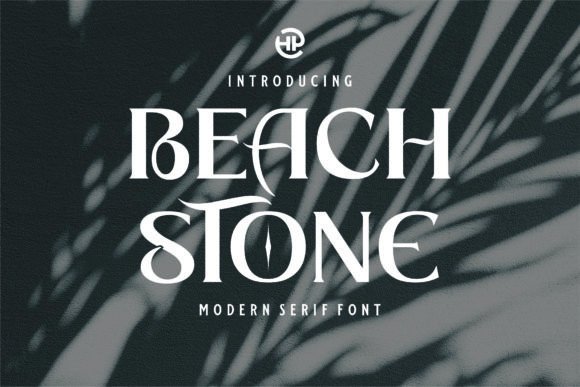
Introducing Beach Stone Font: The Perfect Blend of Classic and Modern Elegance
In the world of typography, fonts play a crucial role in conveying the tone and personality of a brand. With countless options available, finding the perfect font that embodies both elegance and modernity can be a daunting task. However, look no further than Beach Stone Font, a stunning modern serif font that effortlessly blends classic charm with contemporary flair.
What is Beach Stone Font?
Beach Stone Font is a thoughtfully designed serif font that exudes sophistication and style. Its clean lines, sharp edges, and smooth curves make it an excellent choice for a wide range of design applications, from logos and headlines to branding and advertising.
This versatile font is perfect for designers seeking to create elegant and trendy designs that captivate their audience. Whether you’re working on a luxury brand, a high-end product, or a creative project, Beach Stone Font is sure to impress.
Key Features of Beach Stone Font
- Classic yet Modern: Beach Stone Font boasts a classic serif design with a modern twist, making it perfect for both traditional and contemporary designs.
- Clean and Stylish Lines: The font features clean, stylish lines that are easy to read, ensuring your message is conveyed with clarity and precision.
- Sharp Edges and Smooth Curves: The combination of sharp edges and smooth curves creates a beautiful visual contrast, adding depth and character to your designs.
- Elegant and Trendy: Beach Stone Font is ideal for creating elegant and trendy designs that appeal to a wide range of audiences.
Uses of Beach Stone Font
Beach Stone Font is an incredibly versatile font that can be used in various design applications, including:
- Logos: Create stunning logos that exude elegance and sophistication.
- Headlines: Use Beach Stone Font to craft attention-grabbing headlines that draw your audience in.
- Branding: Establish a strong brand identity with Beach Stone Font’s classic yet modern design.
- Advertising: Make your advertising campaigns stand out with this beautiful font.
- Packaging: Add a touch of elegance to your product packaging with Beach Stone Font.
Why Choose Beach Stone Font?
With so many fonts available, why choose Beach Stone Font? Here are just a few reasons:
- Unique Design: Beach Stone Font offers a unique blend of classic and modern design elements, setting it apart from other fonts.
- Readability: The font’s clean lines and sharp edges ensure excellent readability, even at small sizes.
- Versatility: Beach Stone Font can be used in a wide range of design applications, making it a valuable addition to your font library.
- Ease of Use: This font is easy to use and pairs well with a variety of other fonts, making it perfect for designers of all levels.
Tips for Using Beach Stone Font
To get the most out of Beach Stone Font, here are some tips to keep in mind:
- Use it as a Title Font: Beach Stone Font is perfect for use as a title font, adding a touch of elegance to your designs.
- Pair it with Sans-Serif Fonts: Pair Beach Stone Font with sans-serif fonts for a beautiful contrast that adds visual interest.
- Experiment with Colors: Try Beach Stone Font with different colors to find the perfect combination for your design.
- Pay Attention to Kerning: Make sure to adjust the kerning to ensure the font looks its best.
In conclusion, Beach Stone Font is an exceptional modern serif font that offers the perfect blend of classic elegance and contemporary style. Its clean lines, sharp edges, and smooth curves make it an excellent choice for a wide range of design applications. Whether you’re a seasoned designer or just starting out, Beach Stone Font is sure to become a valuable addition to your font library.